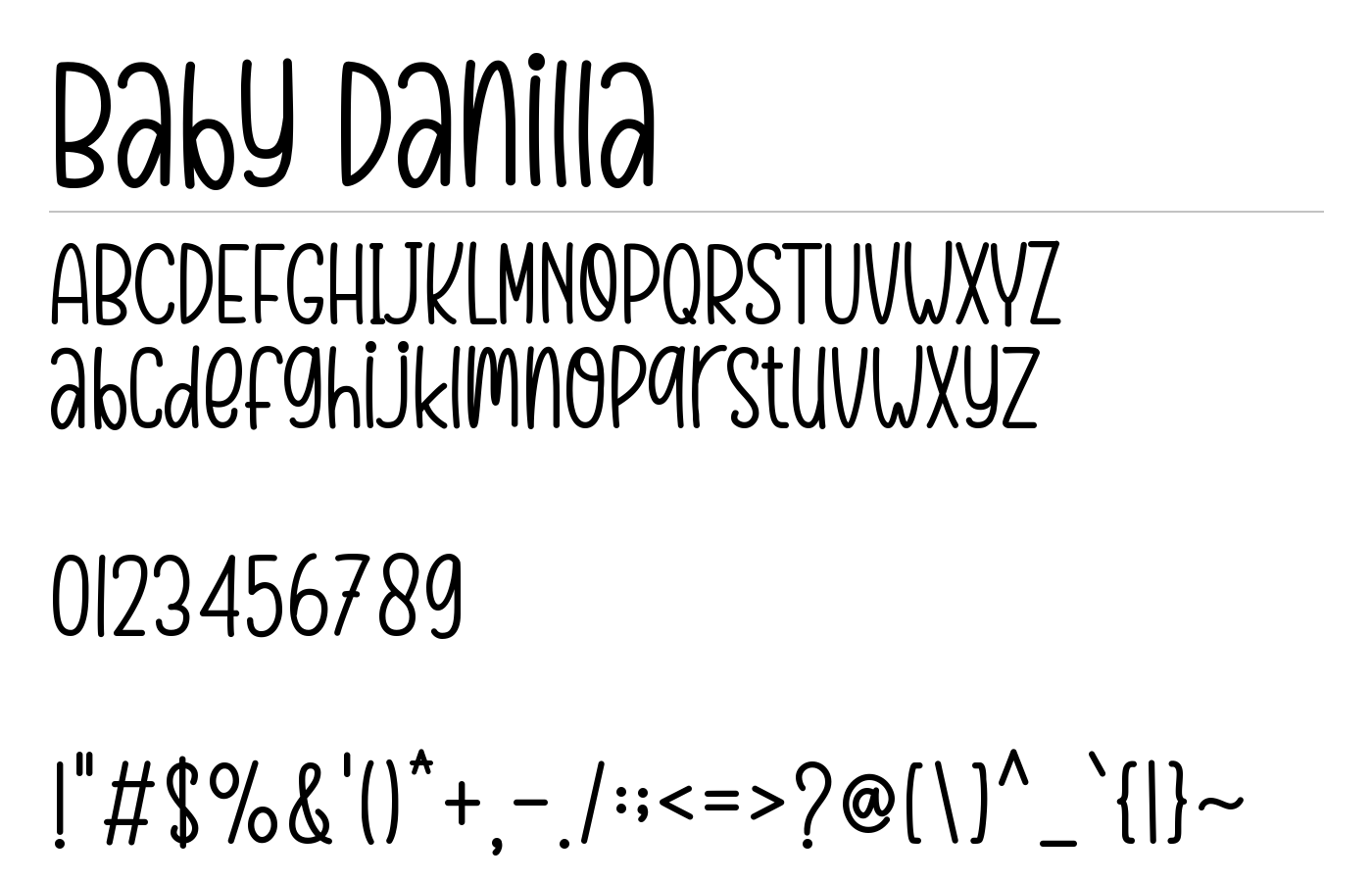
Baby Danilla is a playful and friendly sans serif font with tall, narrow letterforms that give it a whimsical, hand-drawn feel. Its light weight and slightly uneven strokes add charm and approachability, making it ideal for children’s books, casual branding, or any project seeking a fun, informal vibe. This font works well in headlines or display use where a fresh and lively personality is desired.
Baby Danilla Font
About Baby Danilla Font
| Font family | Baby Danilla Font |
| Designer | Risma Ramawi |